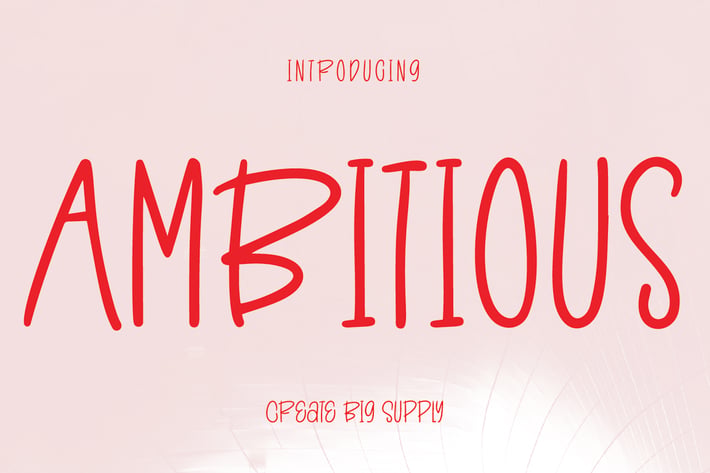
Ambitious - Fun Sans Serif Font
Ambitious is fun sans serif font. This will add a very cute, fun, playful touch to your design. This font is PUA encoded which means you can access all the glyphs and sweeps easily!
+Uppercase & lowercase
+Numbers and punctuation
+Multilingual